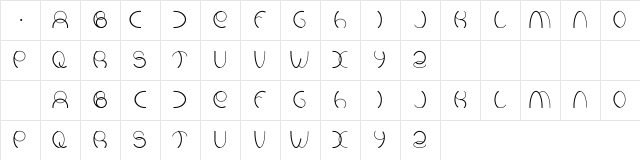
Complete Kszywometrja Normalny glyph index. Displaying only characters natively supported by Kszywometrja Normalny font.
Kszywometrja is a composed and adaptable typeface that performs quietly and consistently across a wide range of design contexts.